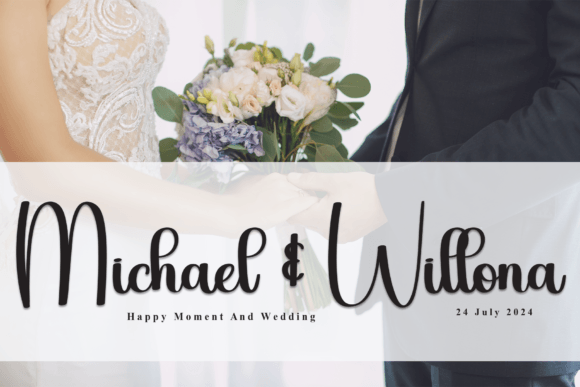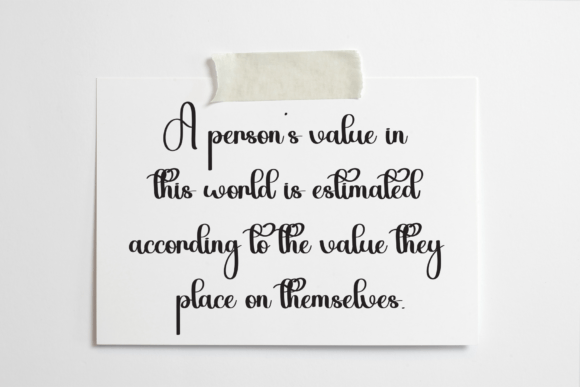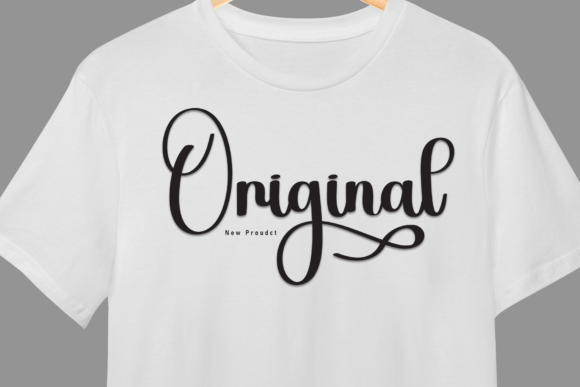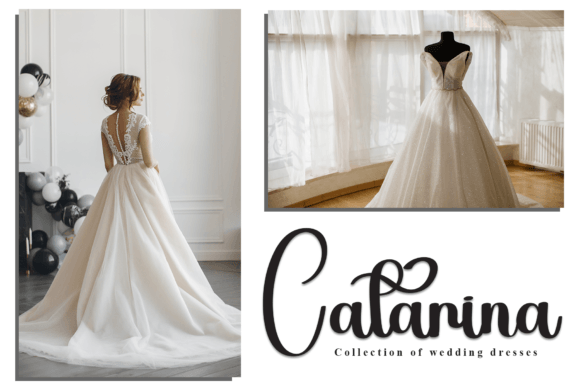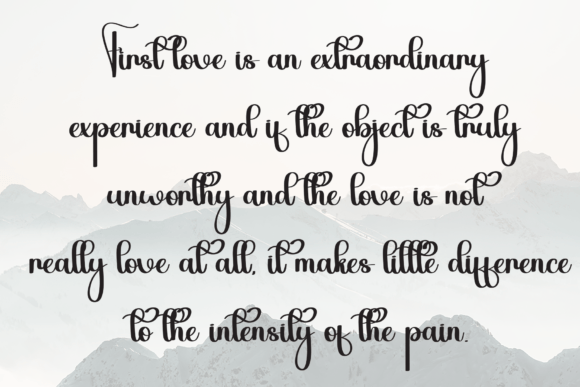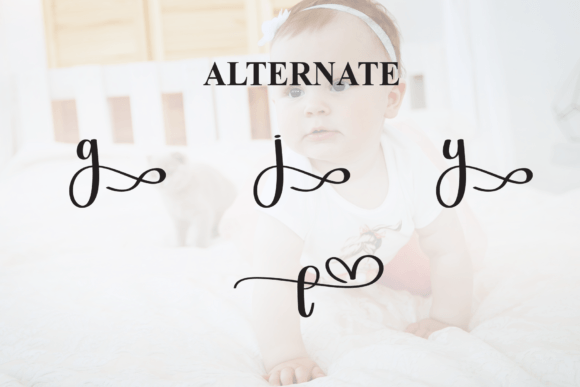
Babytime Font: Elevate Your Creativity with Elegance
In the world of typography, few fonts manage to capture the essence of elegance and whimsy as beautifully as the Babytime Font. This magical script font is carefully crafted to add a touch of sophistication to any creative project, making it a perfect choice for designers, crafters, and DIY enthusiasts alike. Whether you’re looking for fonts to enhance your Instagram feed or calligraphy scripts for your next DIY project, Babytime Font is sure to turn your creative ideas into true pieces of art.
The Charm of Babytime Font
Babytime Font stands out with its unique blend of classic script elements and modern flair. Its elegant strokes and fluid connections make it a versatile choice for a wide range of applications, from digital media to handmade crafts. The font’s design is inspired by traditional calligraphy, yet it carries a contemporary feel that appeals to modern sensibilities. This blend of old and new makes Babytime Font a valuable addition to any designer’s or crafter’s toolkit.
Perfect for Instagram and Social Media
In the age of visual storytelling, having a distinctive aesthetic is crucial for standing out on social media platforms like Instagram. Babytime Font offers a stylish solution for creating eye-catching posts, stories, and captions. Its elegant and playful nature can elevate your feed, making it more engaging and visually appealing. Whether you’re a blogger, influencer, or business looking to enhance your brand’s social media presence, Babytime Font can help you achieve a cohesive and sophisticated look.
Unleash Your Creativity with DIY Projects
For crafters and DIY enthusiasts, Babytime Font opens up a world of creative possibilities. Its calligraphy-style script is perfect for hand-lettering projects, such as making personalized cards, invitations, and decorations. The font’s clarity and beauty ensure that your handmade creations will look professional and polished, allowing your personal touch to shine through. Whether you’re creating gifts, party favors, or home decor items, Babytime Font can add an extra layer of charm and elegance to your projects.
- Elegant and Versatile: Babytime Font’s elegant design makes it suitable for a variety of projects, from digital graphics to handmade crafts.
- Easy to Read: Despite its decorative nature, the font remains clear and easy to read, making it practical for use in both digital and print materials.
- Magical and Whimsical: Adds a touch of magic and whimsy to any project, perfect for creating memorable and impactful designs.
- Compatible with Various Projects: Ideal for Instagram posts, DIY crafts, calligraphy, and more.
Babytime Font is more than just a script font; it’s a tool for bringing creativity and elegance to life. Whether you’re a professional designer looking for a sophisticated typeface or a crafter seeking to add a personal touch to your projects, Babytime Font is an excellent choice. Its magical and whimsical nature, combined with its versatility and readability, makes it a valuable asset for anyone looking to elevate their creative work. Explore the possibilities with Babytime Font and discover how it can transform your designs and DIY projects into true pieces of art.